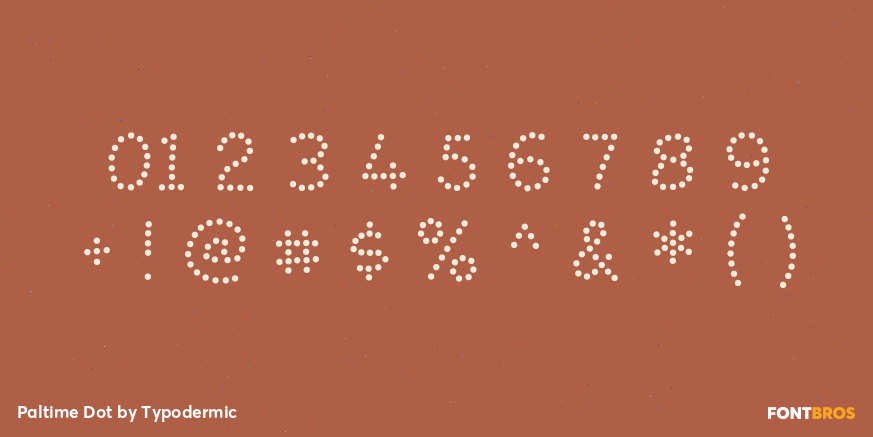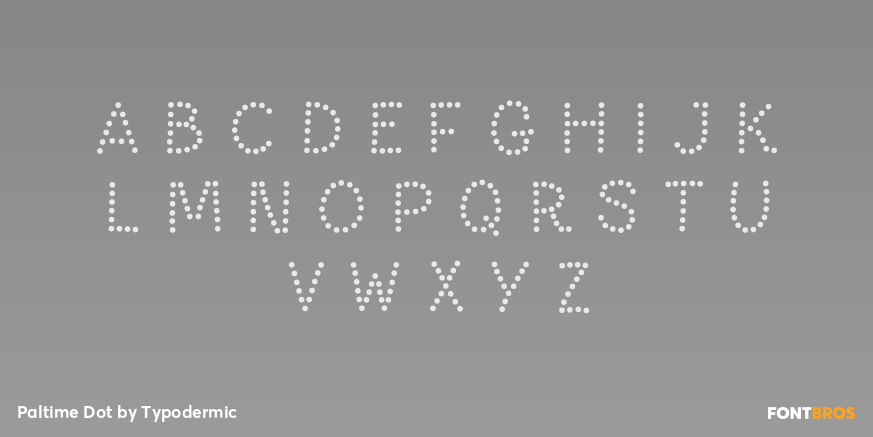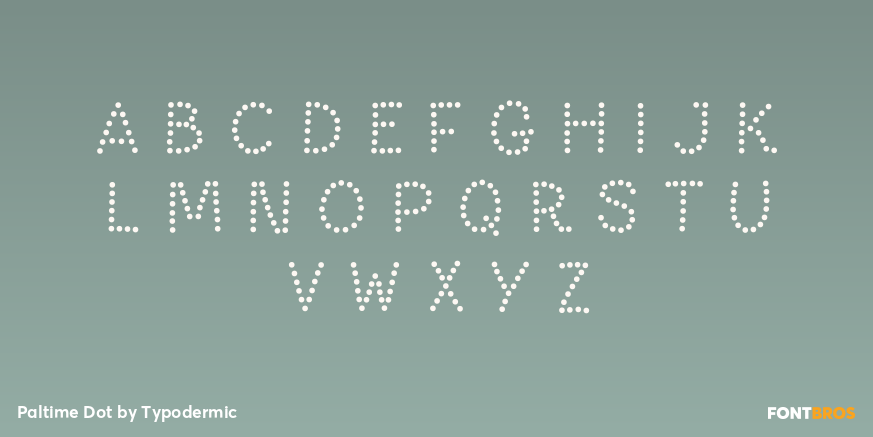
Paltime Dot
Buy NowPaltime Dot constructs the family’s all-caps letters entirely from separated circular modules, with no enclosing stroke or solid body. The evenly spaced dots follow the same underlying word shapes as the other Paltime styles, producing a clean lamp-array or scoreboard effect. Because the layer shares the family’s registration, it can stand alone as point-built lettering or sit over Paltime Solid for a two-color illuminated treatment.
Use Paltime Dot for digital billboards, game-show graphics, attraction signs, concert screens, prize announcements, and motion sequences in which individual lights can switch on or change color. It reads best in short words at large sizes, where every circle remains distinct. Paltime Solid can anchor the dots inside a contrasting letter body, while Marquee supplies a ready-made face with matching circular openings.